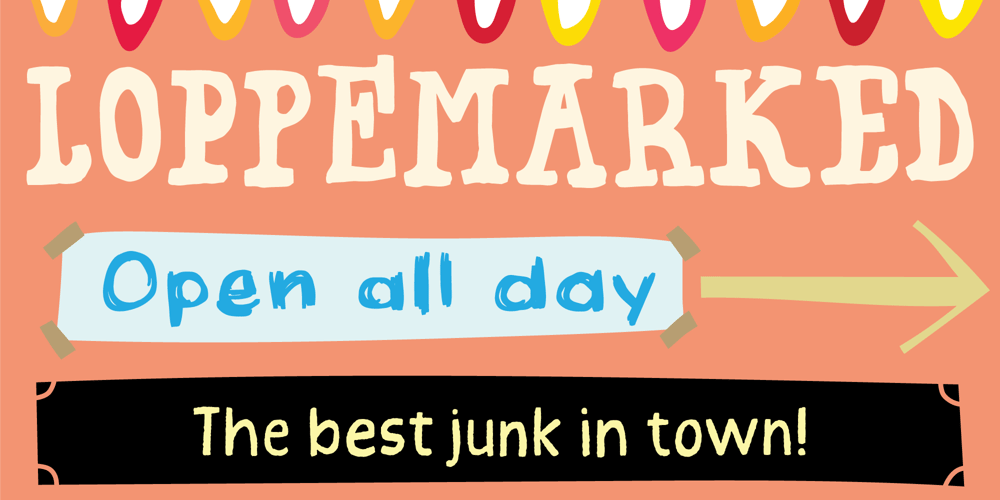
Loppemarked
Loppemarked font
Loppemarked Font Family was designed by Jakob Fischer and published by PizzaDude.dk. Loppemarked contains 6 styles and family package options. Loppemarked is Flea market in danish, and that’s where I got the inspiration to do these fonts from!Headline – chunky serifs here and there, and some are missing! No attempt to get it right…anywhere!Text – The letters are scribbled quickly, leaving not much attention to accuracy.Sans – With this font, there has been some effort to hit the same width of strokes, but it is still off here and there.All in all, the sweet innocence in these letters…I love it! <3